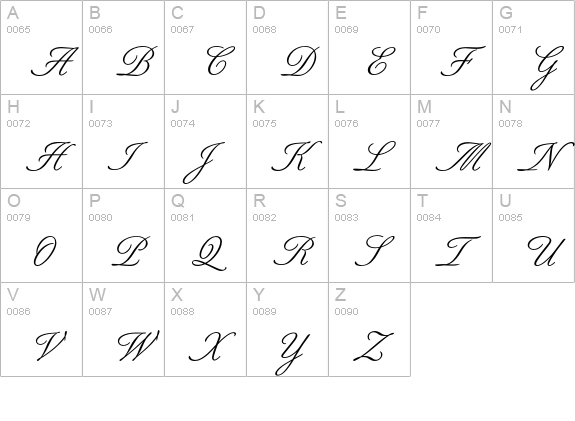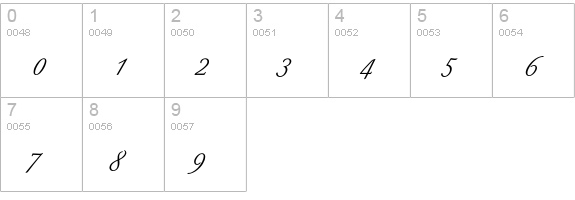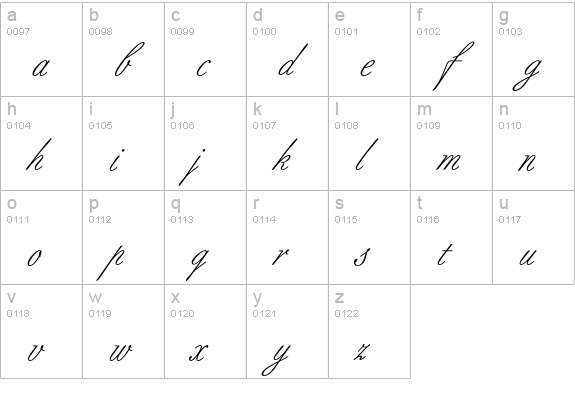
Berthold Script BQ Regular is the standard, neutral variant in the Berthold typeface family \xE2\x80\x94 well suited to general body text, paragraphs, and standard typographic work.
Berthold Script BQ Regular is a timeless and elegant font that exudes sophistication and charm. With its flowing script style and graceful lines, this font is perfect for adding a touch of class to any project. Whether you're designing wedding invitations, creating elegant branding materials, or crafting a luxurious logo, Berthold Script BQ Regular is sure to impress. And the best part? Berthold Script BQ Regular is available for free download at FontsMarket.com. This means you can easily access this stunning font and elevate your designs without any cost. Don't miss out on the opportunity to enhance your projects with the beauty and versatility of Berthold Script BQ Regular. Download it today and let your creativity shine!